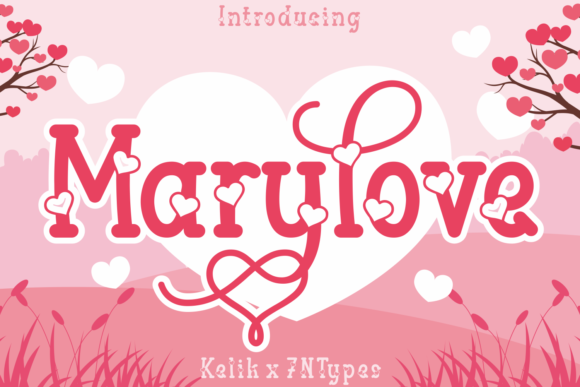
Venture into the realm of typography with Marylove, a decorative font that captivates hearts with its charming aesthetic. Inspired by the vibrant spirit of New York City, this font is a true testament to the transformative power of love.
Each character in Marylove is delicately adorned with heart shapes, adding a touch of whimsy and sweetness to your designs. Experience the thrill of witnessing your words blossom into enchanting expressions of affection, capturing the essence of love in every letter.
With Marylove, you hold the key to unlocking a world of creative possibilities. Unleash your imagination and let your designs soar with this font that's perfect for crafting heartfelt messages, love-themed projects, and designs that resonate with the beauty of romance.
This font's PUA encoding grants you effortless access to a diverse array of glyphs and swashes, empowering you to add intricate details and flourishes to your projects. Whether you're designing a wedding invitation, creating a Valentine's Day card, or simply seeking to add a touch of charm to your designs, Marylove is your perfect companion.
Immerse yourself in the captivating allure of Marylove, a font that embodies the essence of love and transforms your designs into captivating masterpieces. Embrace the joy of creating heartfelt expressions that leave a lasting impression on your audience.
With Marylove by your side, let your designs speak volumes, conveying messages of love, joy, and enchantment. Experience the magic of typography as you witness your creations bloom into captivating works of art.